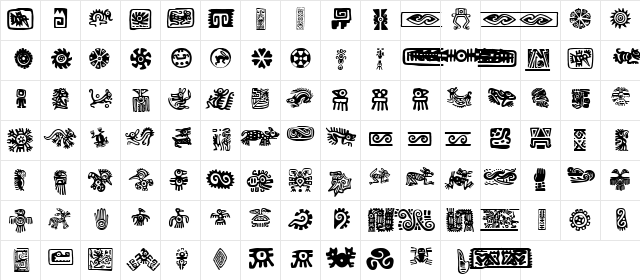
P22 Mexican Relics Regular
Foundry: P / International House of Fonts,
Design Context for P22 Mexican Relics
P22 Mexican Relics is a composed and adaptable typeface that performs quietly and consistently across a wide range of design contexts.